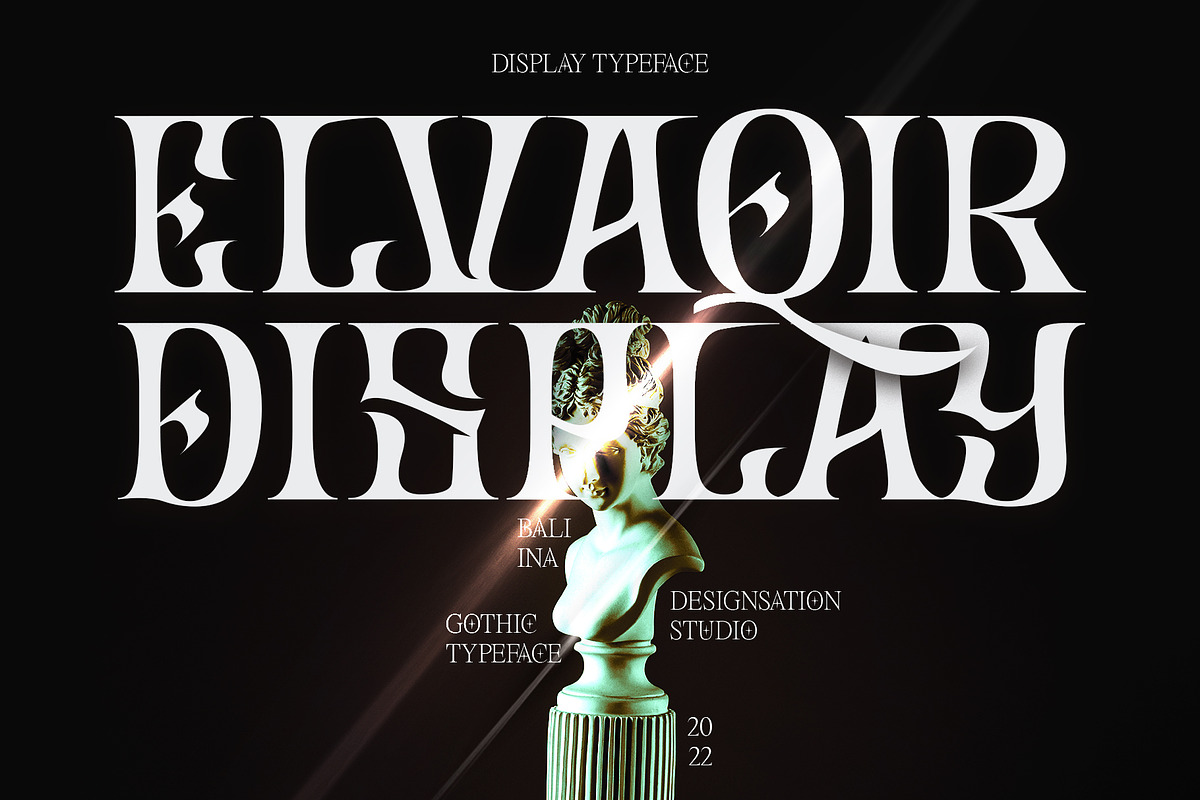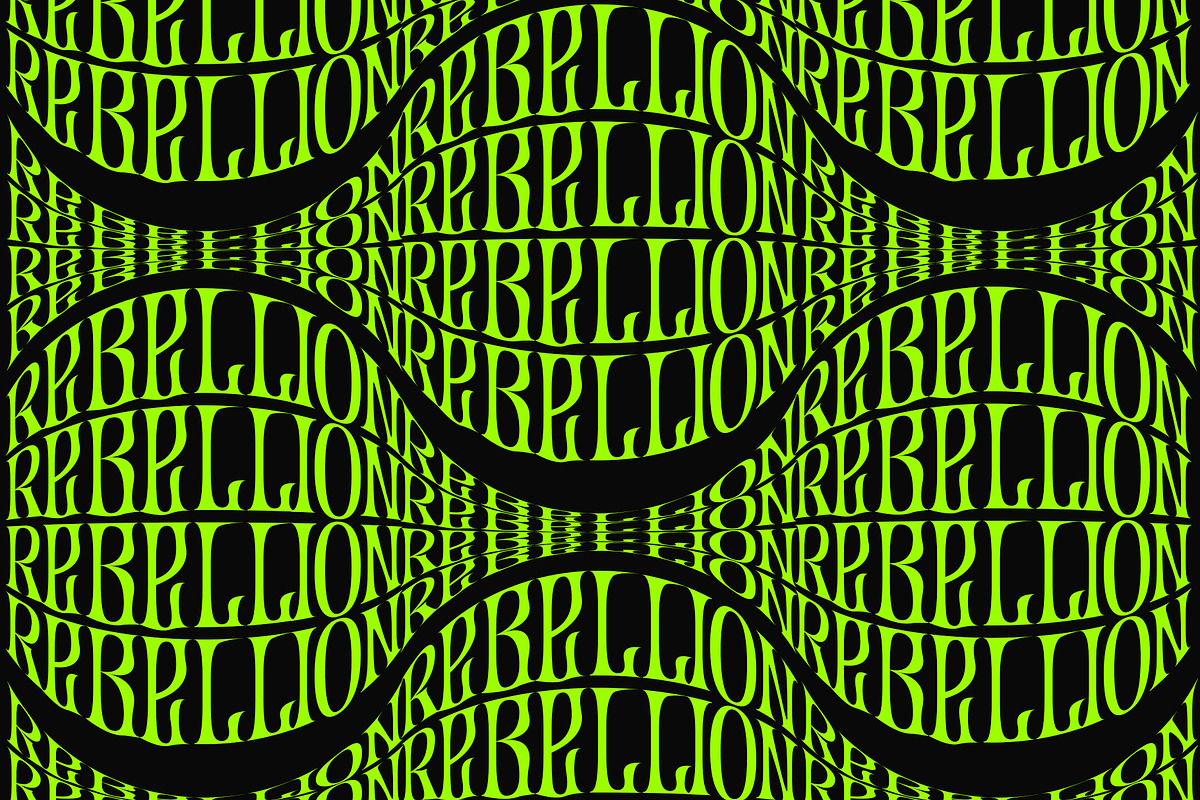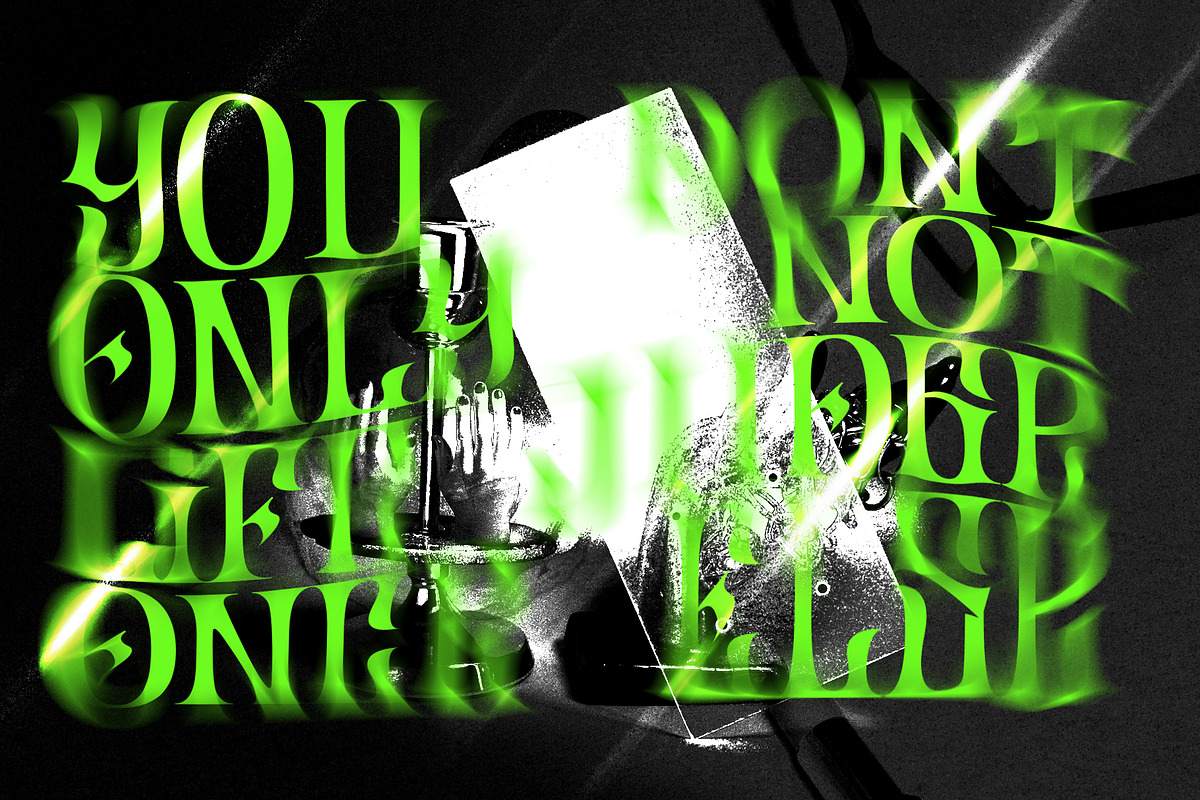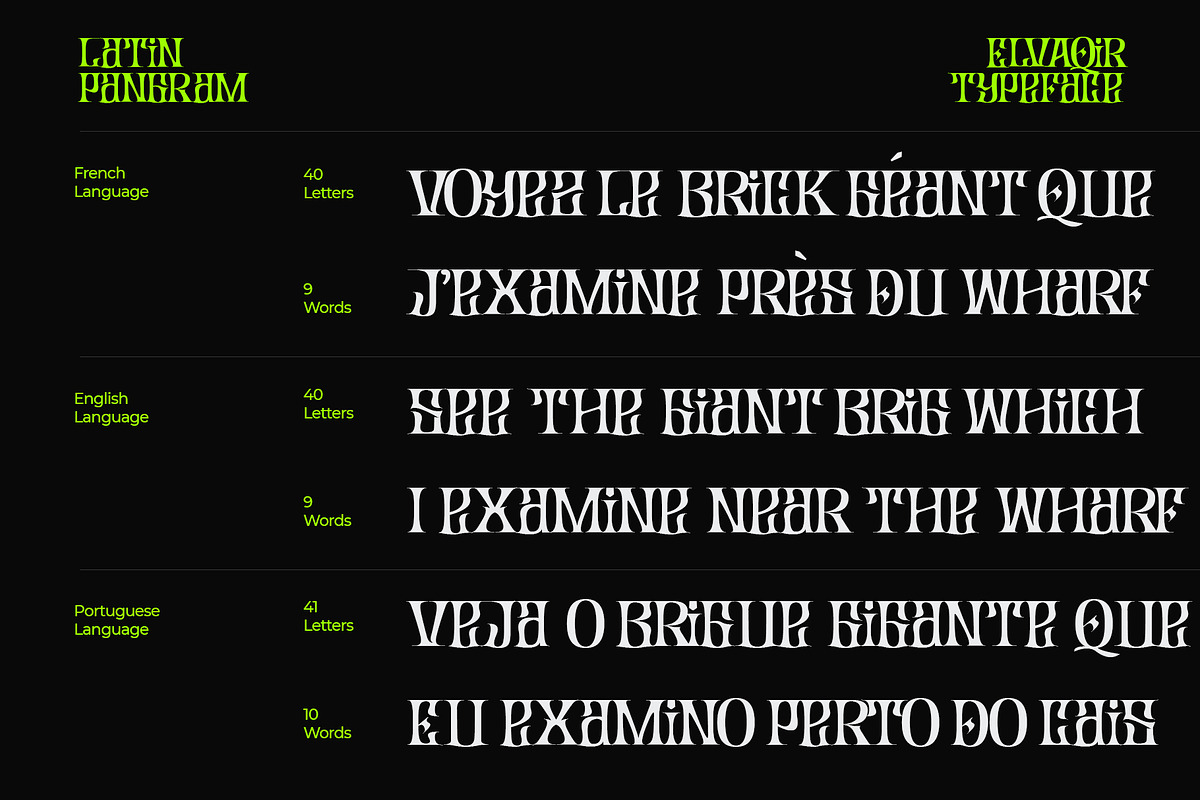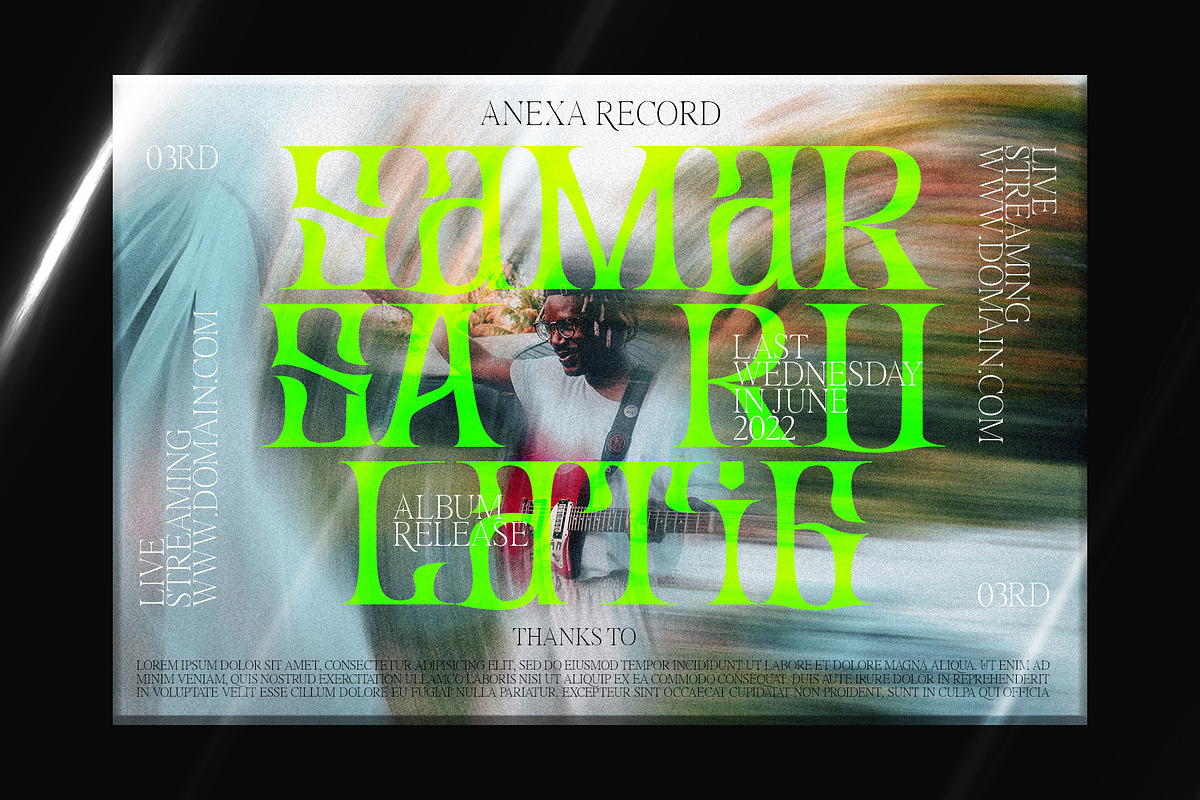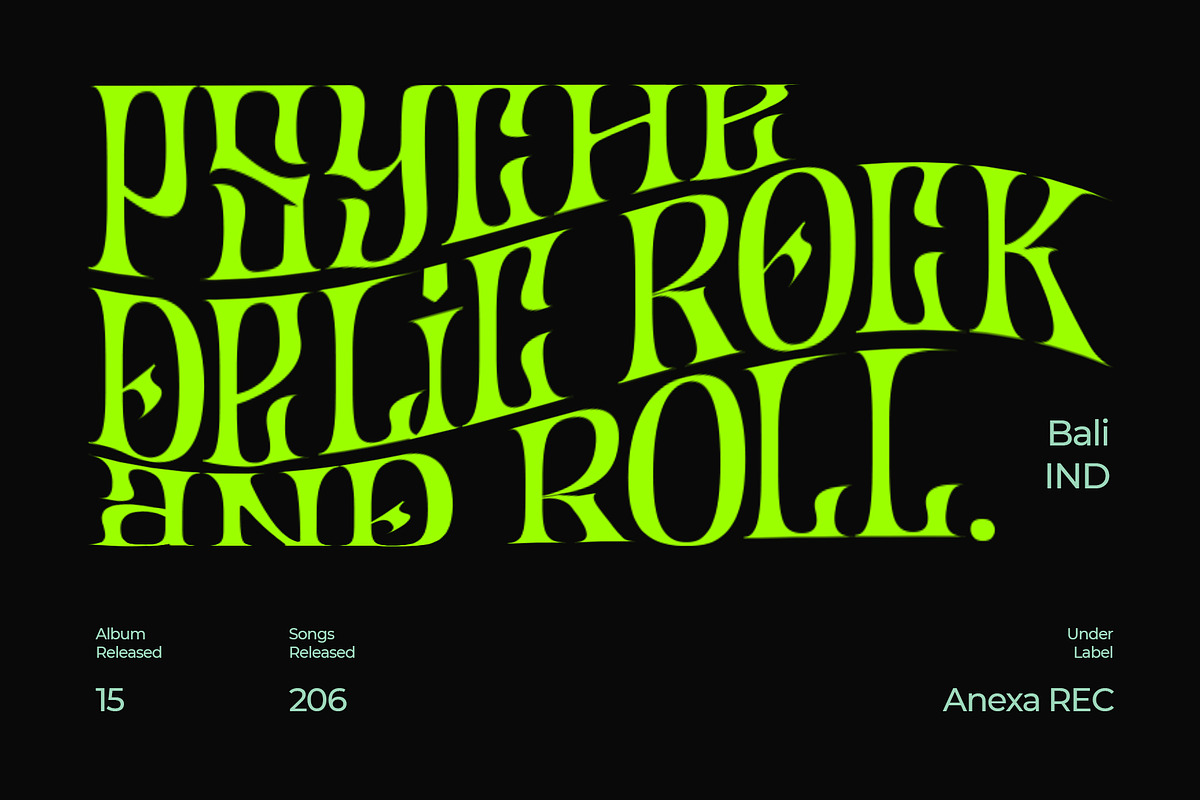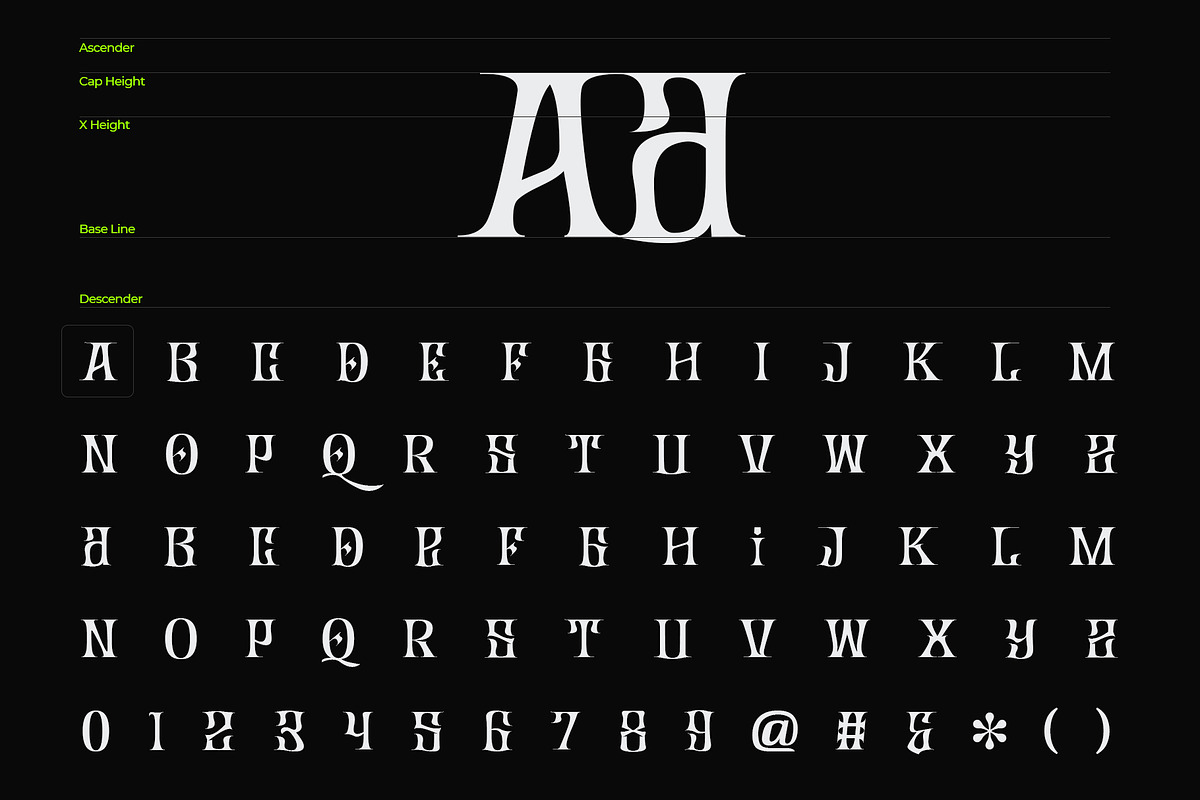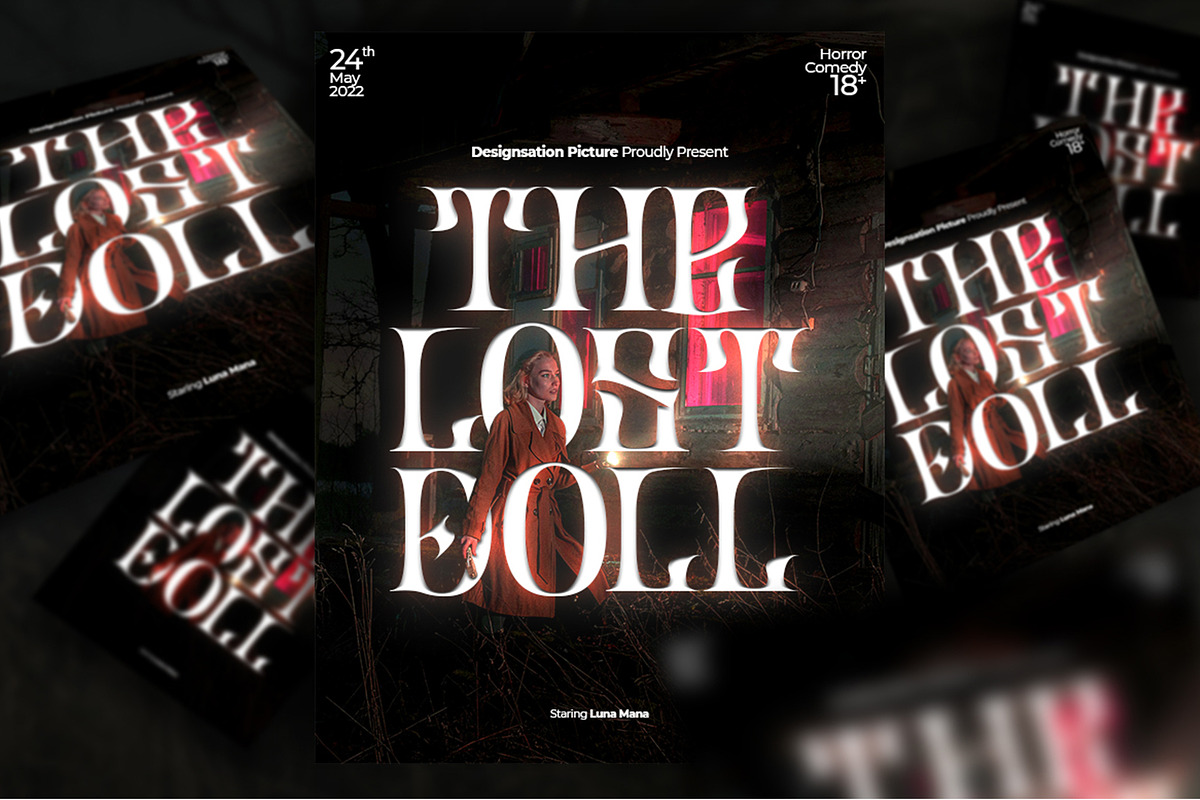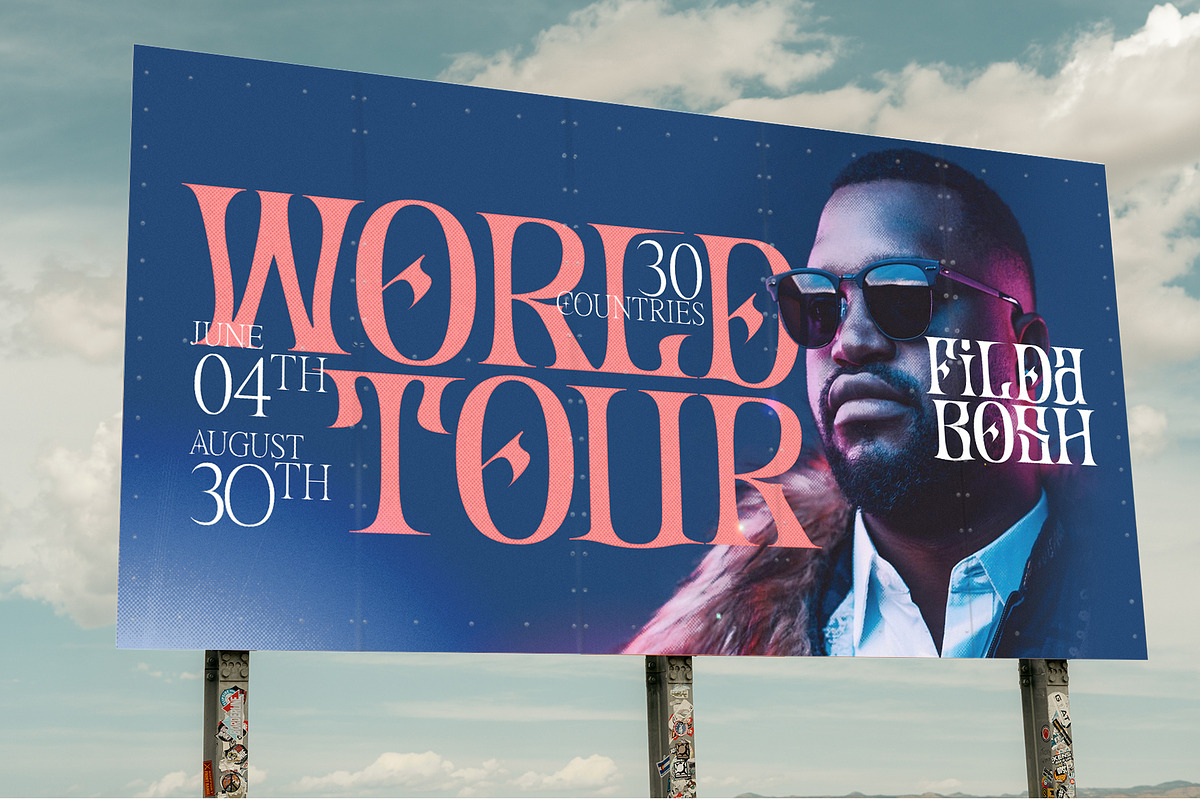
Elvaqir Rock and Roll Typeface
Elvaqir is a Gothic typeface that accentuates Rock and roll, Psychedelic, and Wildness in expression. Focusing on experimental shapes and curves that are aligned between letters. This intimidating and expressive impression will make your project more dominant. Dashing, powerful, brave, and mysterious is the message to be conveyed in this typeface